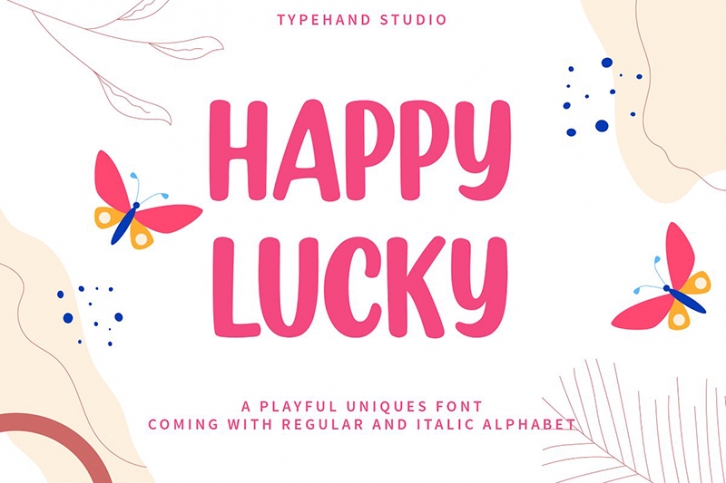
Hello ! Meet our Happy Lucky !
Happy Lucky is a stylish brush marker font with normal and italic style that make your latest project awesome.
Happy Lucky is a hand-drawn font that comes with unique letters.Happy Lucky coming with Open Type Features and support for multilanguages.
Happy Lucky is perfect for branding projects, logo, wedding designs, social media posts, advertisements, product packaging, product designs, label, photography, watermark, invitation, stationery and any projects that need handwriting taste.